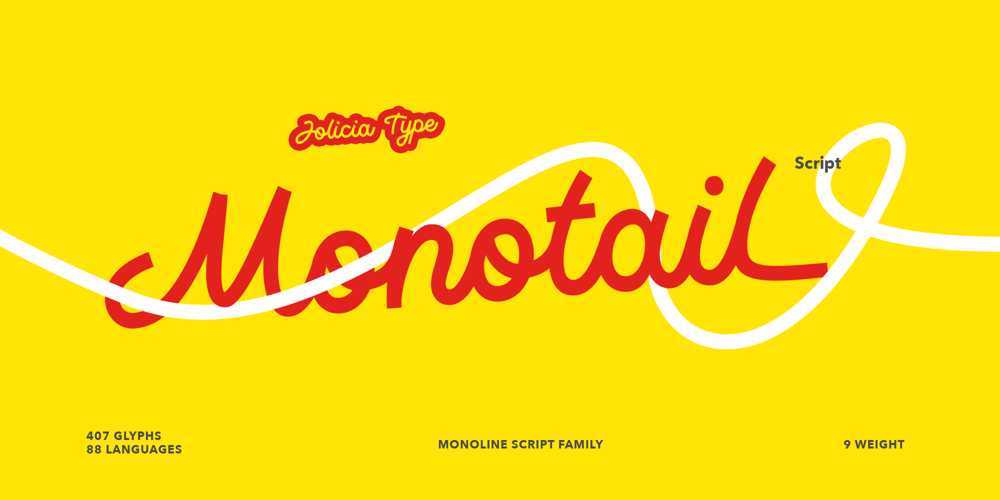
Monotails Script Font Family was designed by Laire Banyu, Dyaharum Pungki Revitasari and published by Jolicia Type. Monotails Script contains 9 styles and family package options. Explore the sleek and refined world of Monotail Script, a monoline font family designed by Laire Banyu Sandi. With 9 distinct weights ranging from Thin to Black, this font stands out for its clean, consistent strokes and meticulous attention to detail, making it an essential choice for modern typography enthusiasts.Monotail Script is the epitome of monoline elegance. Its evenly weighted strokes create a seamless flow, ensuring a contemporary and polished look for every letterform. The precision in its design reflects Laire’s dedication to creating a typeface that is not only visually stunning but also versatile in its application.Monotail Script balances simplicity and sophistication, making it ideal for both minimalist and dynamic designs. Its clean monoline structure ensures readability while maintaining a distinct personality, making it suitable for both formal and playful projects.Whether you’re a graphic designer, brand developer, or content creator, Monotail Script offers the versatility and quality you need to make a lasting impression.